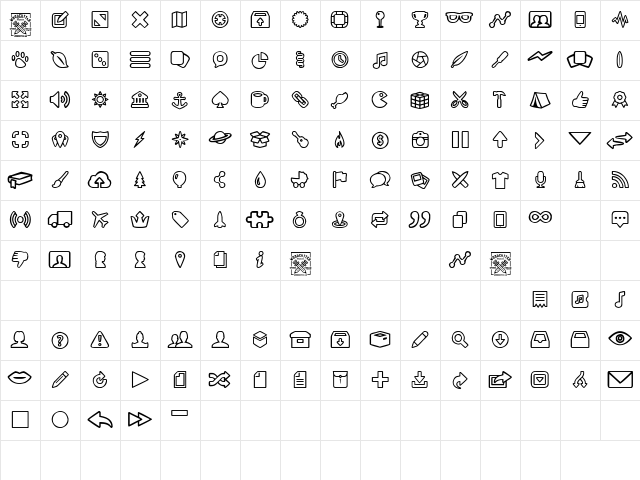
Outline mix Regular
Design Context for Outline mix Typeface
Outline mix is built around its visual character rather than neutral utility — its distinctive forms are designed to make an impression at display sizes.
Font Pairing: Pair with a clean neutral sans-serif for body copy to let Outline mix's character lead without overwhelming the composition.
Pro Tip: Use Outline mix exclusively at display sizes — it was designed to be seen, not read at length. Let a neutral companion handle body copy.